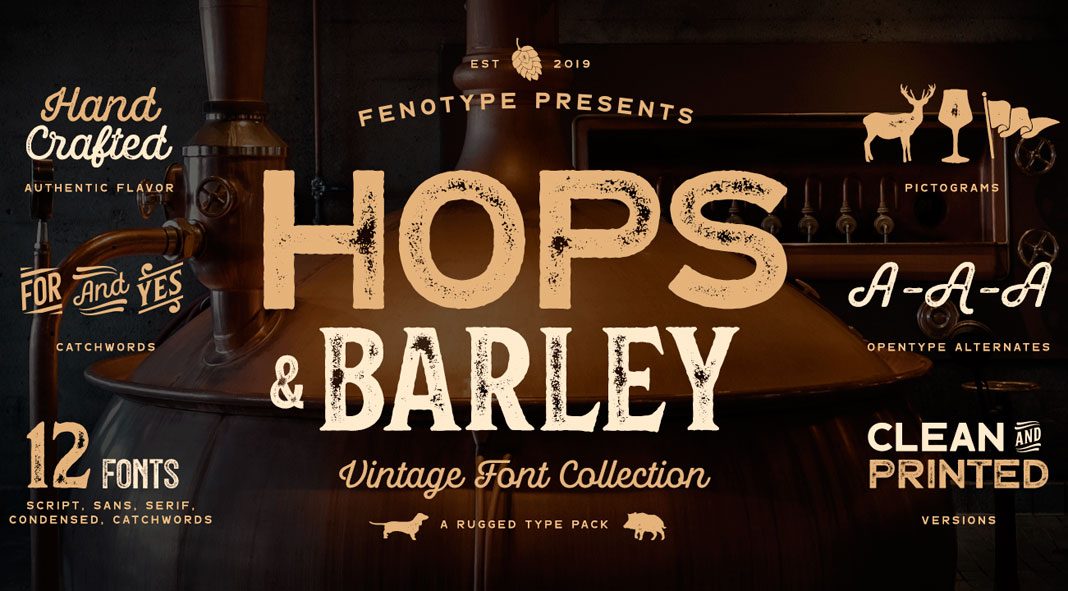
Hops And Barley, a grungy vintage font family from Fenotype.
Type designer Emil Bertell has created Hops And Barley, a multiple classification font family with a grungy vintage appearance. Published by foundry Fenotype, the family consists of 16 styles including script versions, sans serifs, stylish catchwords, and symbols. They are all included in both a clean and textured version. All the fonts can be combined easily. They’re a great choice for any display such as websites, packaging, posters, just to name a few. To learn more, just click on the following links.